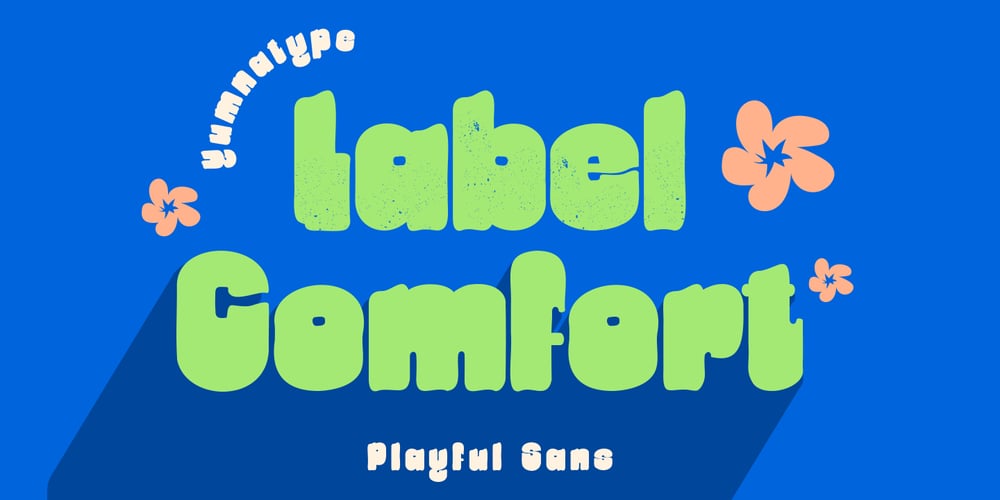
Label Comfort Font Family was designed by Donis Miftahudin and published by Yumna Type. Label Comfort contains 2 styles and family package options. Label Comfort is a bold and versatile display font that combines the comfort of rounded shapes with the rugged charm of a grunge version. Each letter in Label Comfort is meticulously designed with rounded shapes that add a soft quality to your text. The very thick weight of the font gives it a strong and commanding presence, while the low contrast ensures clarity and legibility in any size.What sets Label Comfort apart is its grunge version, which adds a touch of texture and character to the font. Perfect for adding a weathered and distressed look to your designs, the grunge version of Label Comfort brings a sense of authenticity and personality to any project. In addition, enjoy the features here.Features: Multilingual Supports PUA Encoded Numerals and Punctuations Label Comfort fits in headlines, logos, posters, flyers, branding materials, print media, editorial layouts, and many more designs. Find out more ways to use this font by taking a look at the font preview.Thanks for purchasing our fonts. Hopefully, you have a great time using our font. Feel free to contact us anytime for further information or when you have trouble with the font. Thanks a lot and happy designing.